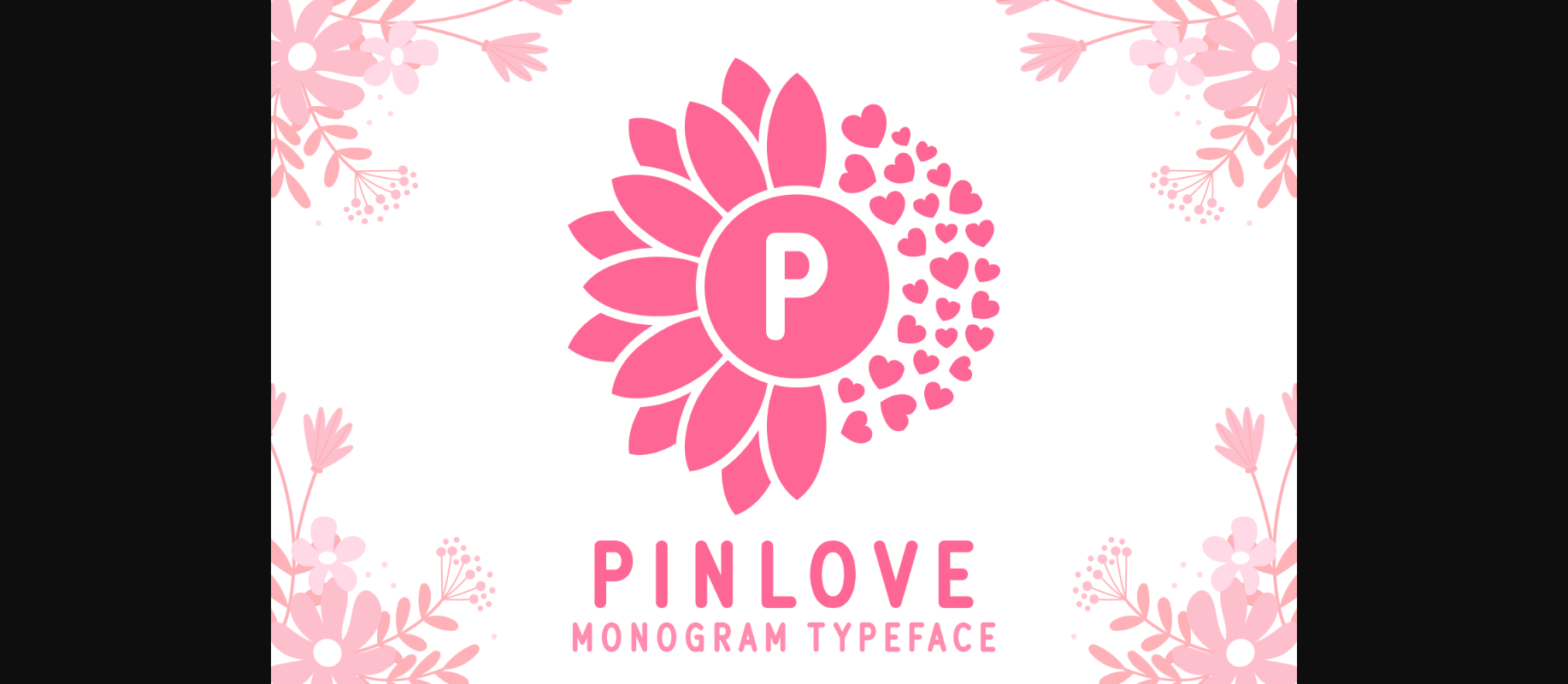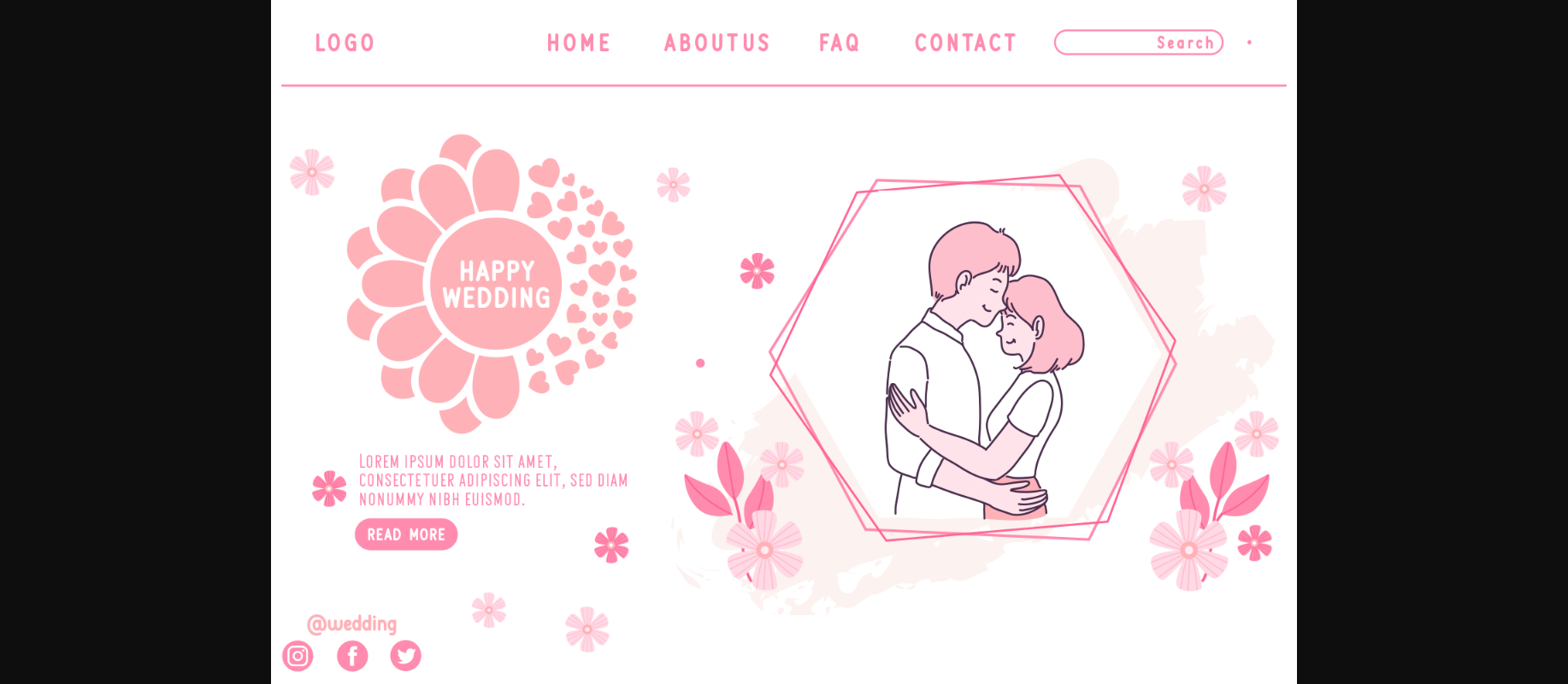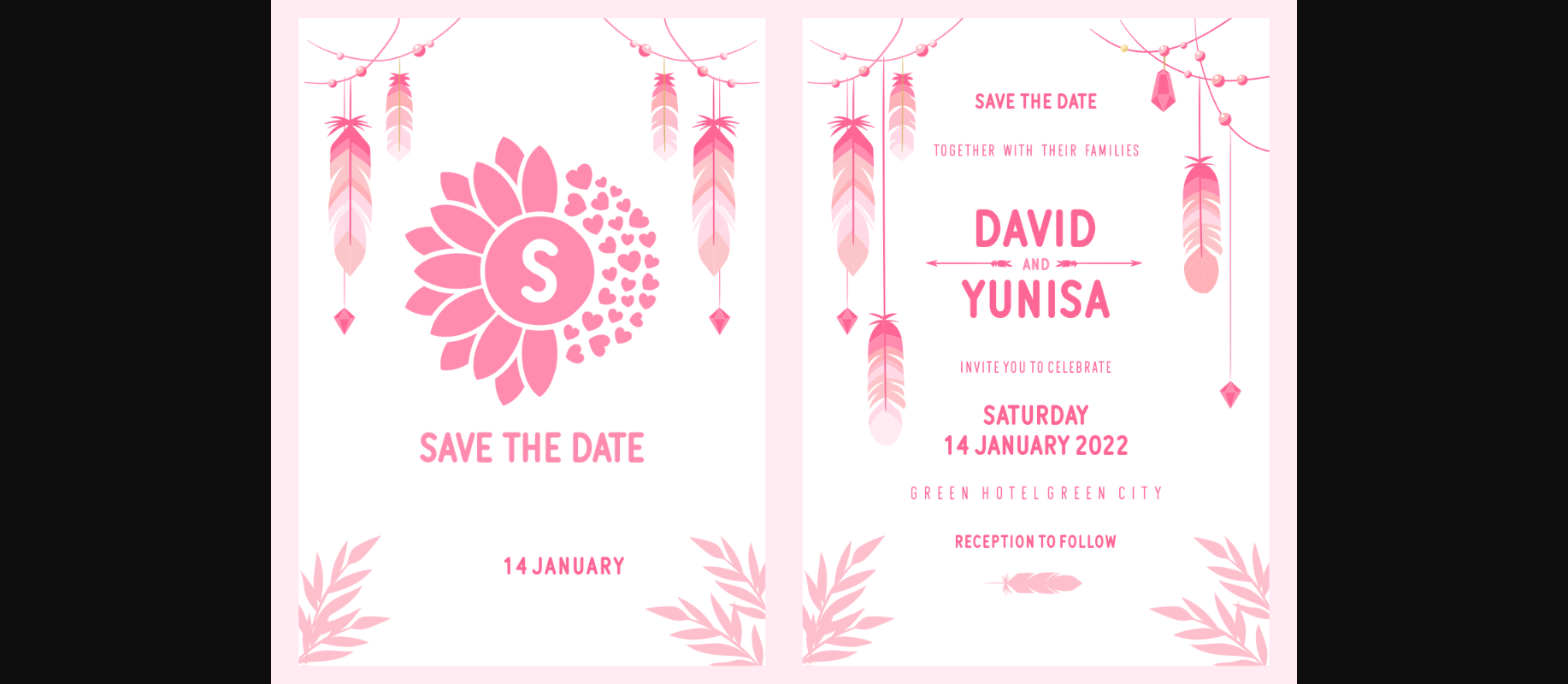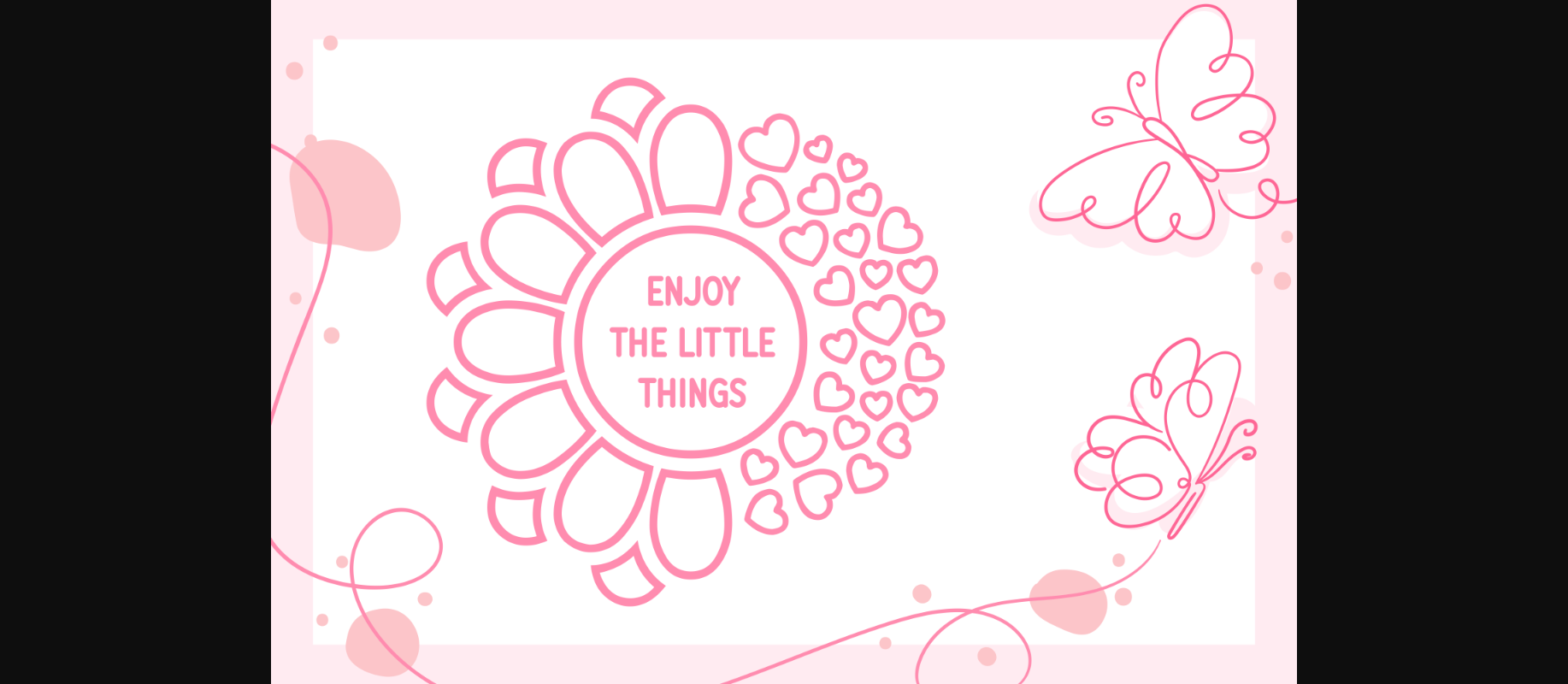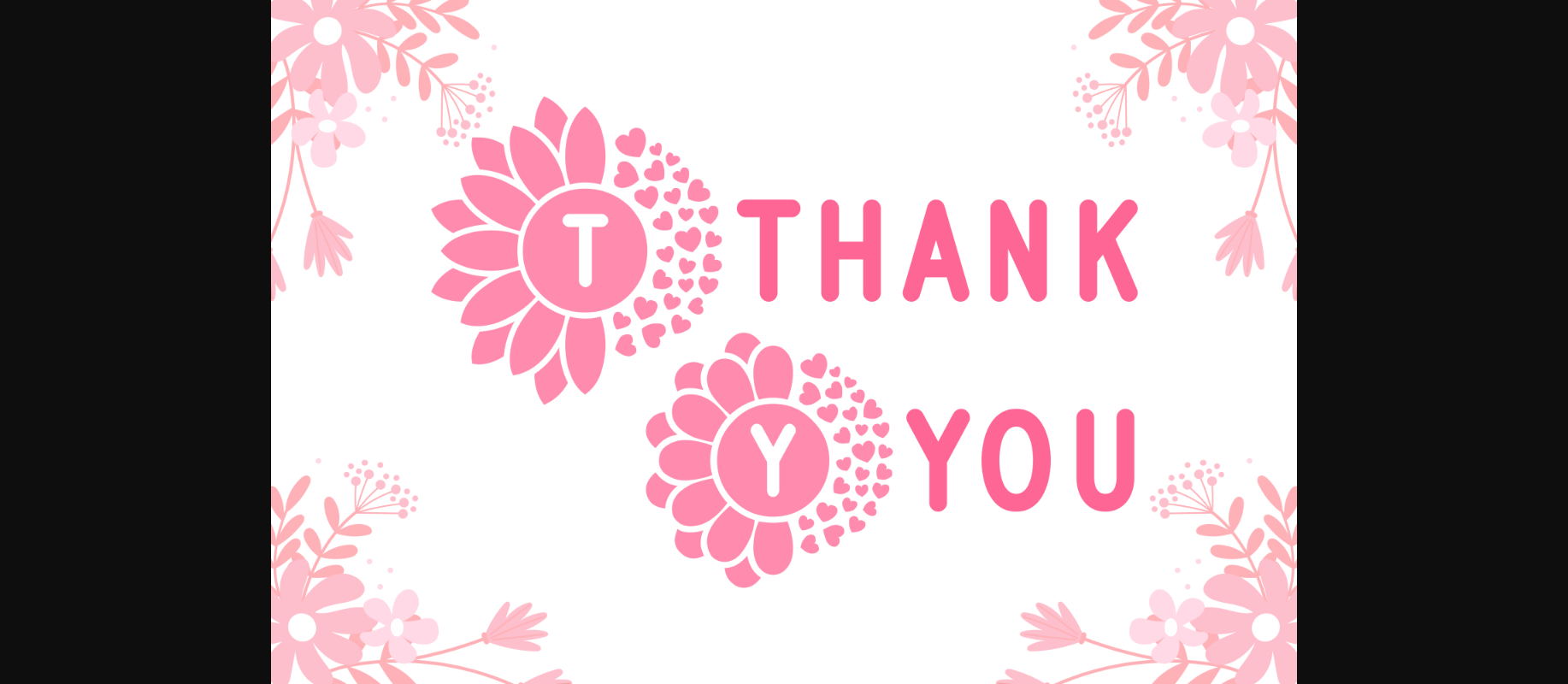
Pinlove Font
About Pinlove Font
Pinlove is a delicate and romantic decorative font that will impress you with its unique and creative style. Use it to create personalized branding materials, business cards, product packaging, gifts, or more.